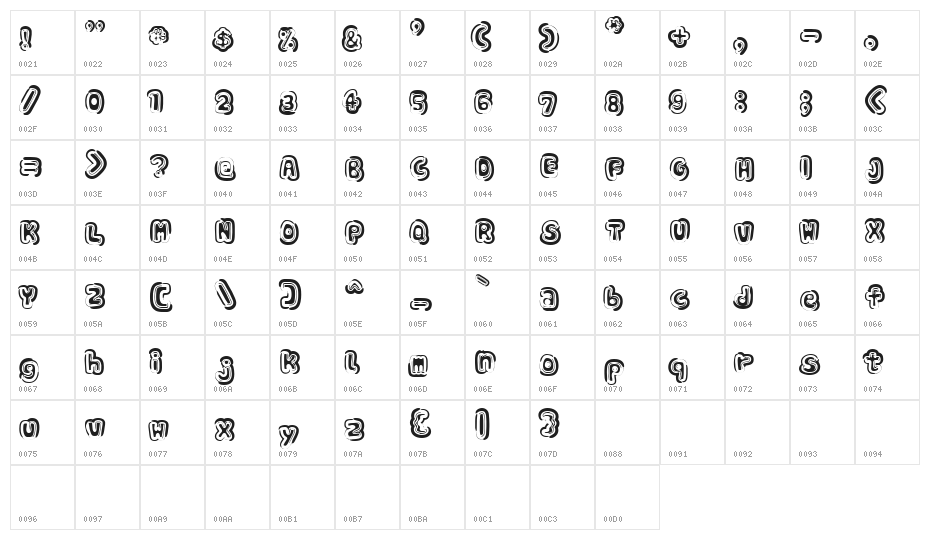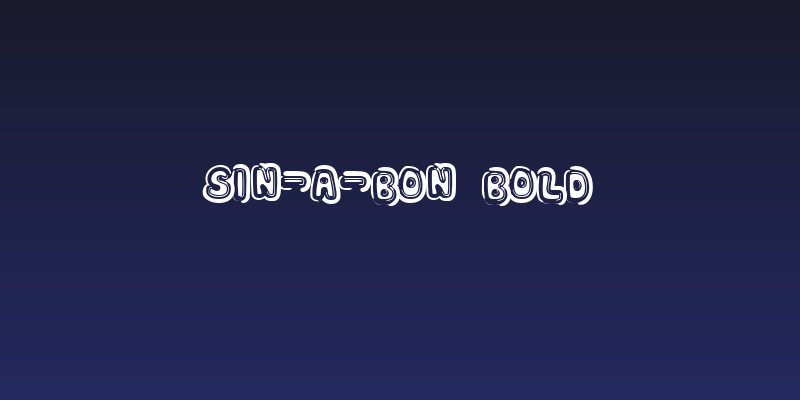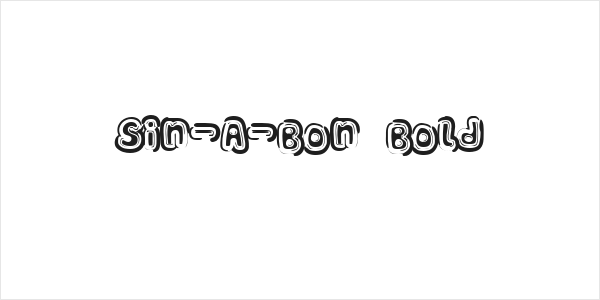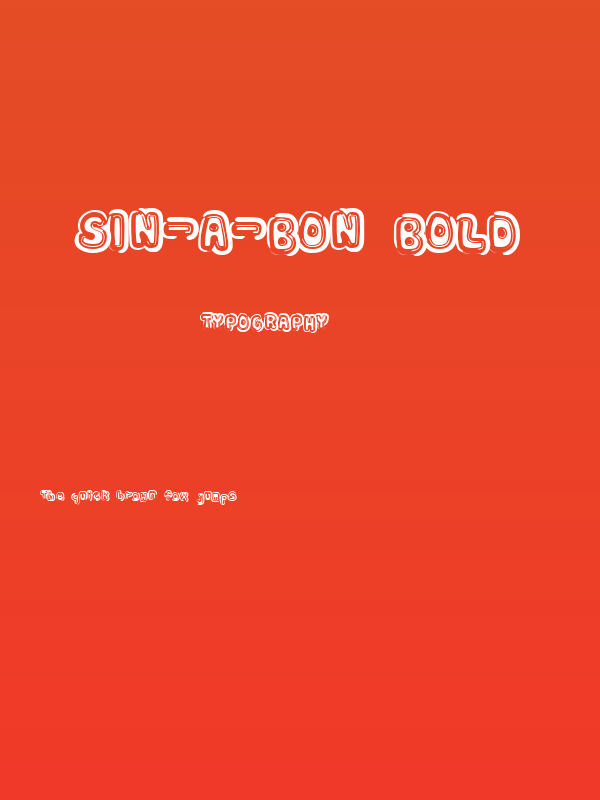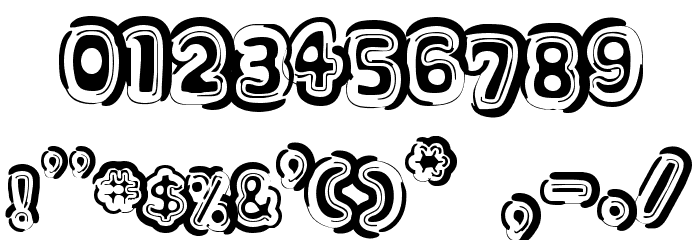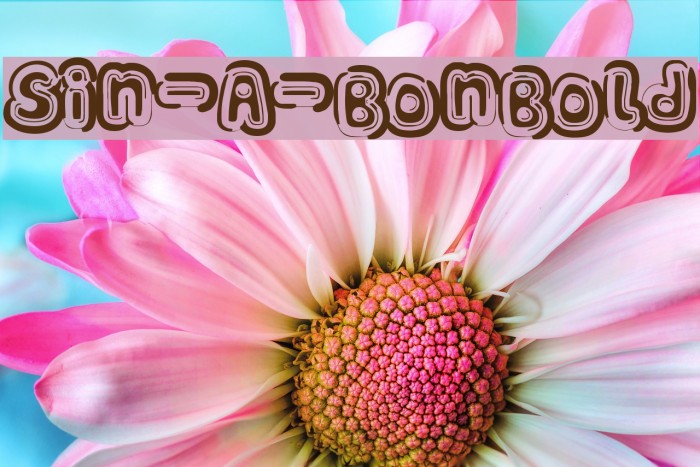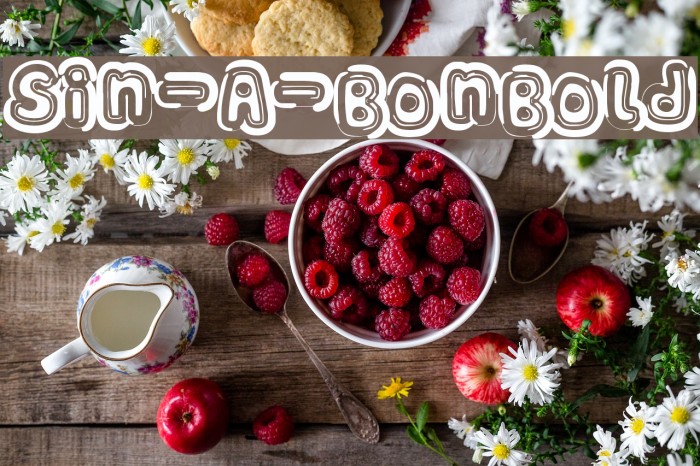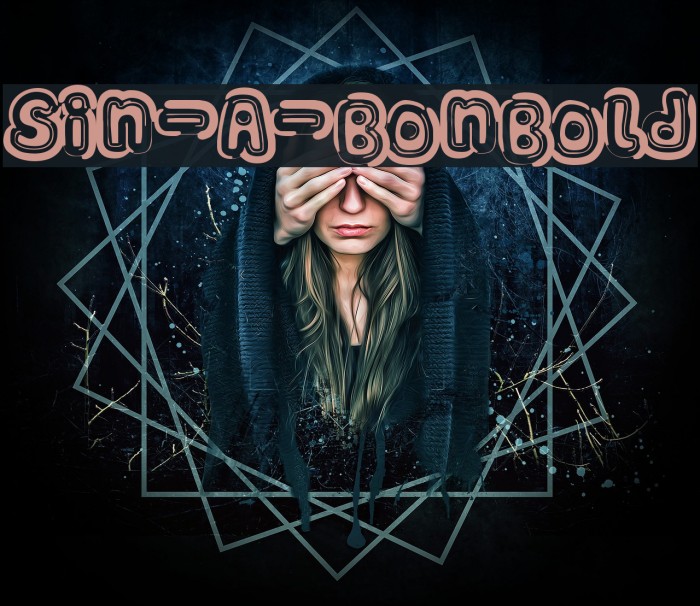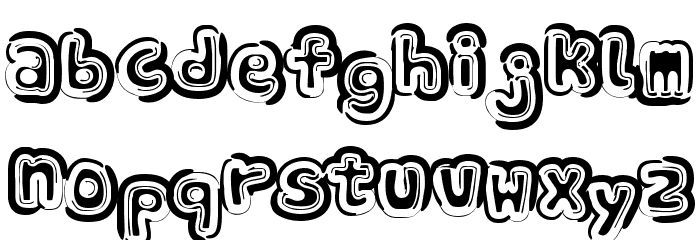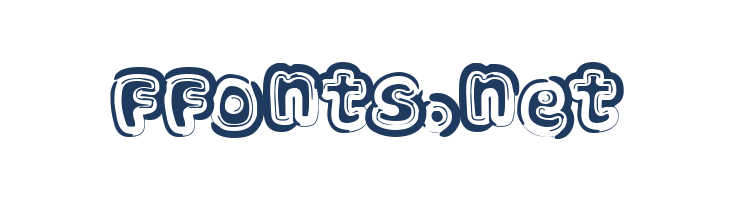
Sin-A-Bon Bold Font
This font features a bold, playful style with a three-dimensional effect created by its thick outlines and shadowing. The characters are rounded and bubbly, giving off a fun and energetic vibe. The uppercase and lowercase letters maintain a consistent style, with exaggerated curves and a sense of movement. Numbers and special characters follow the same design principles, ensuring a cohesive look across all text elements. The font's unique appearance makes it stand out, perfect for projects that require a lively and eye-catching typeface.
| Overall Style | Playful, Energetic, Fun |
| Proposed Projects | Ideal for children's books, comic strips, playful branding, event posters, and any project needing a fun, dynamic typeface. |